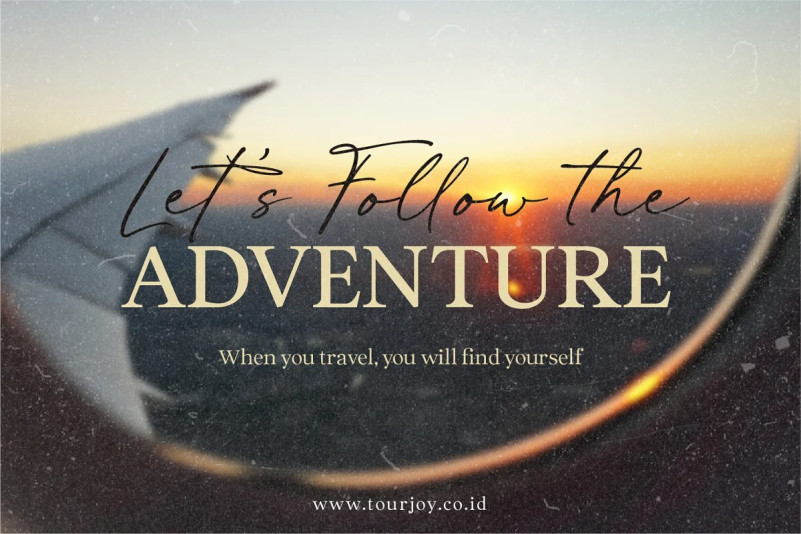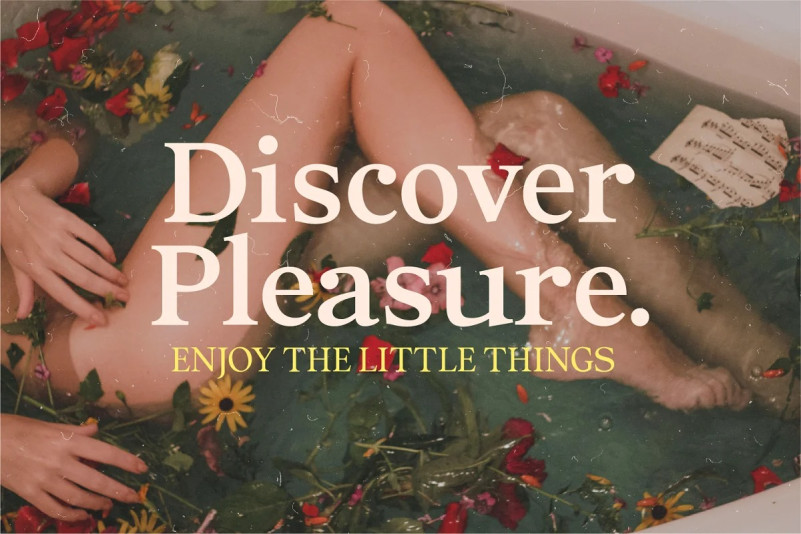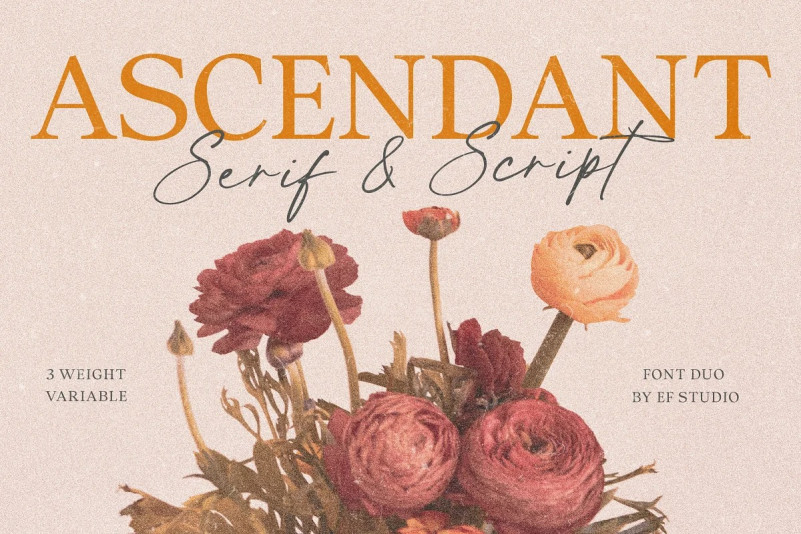
Ascendant Font
Ascendant Font is a font duo, with contemporary serif family font and script. It’s so versatile to mix and match. Perfect for branding, editorial design, logo, book, poster, magazine, and so on.